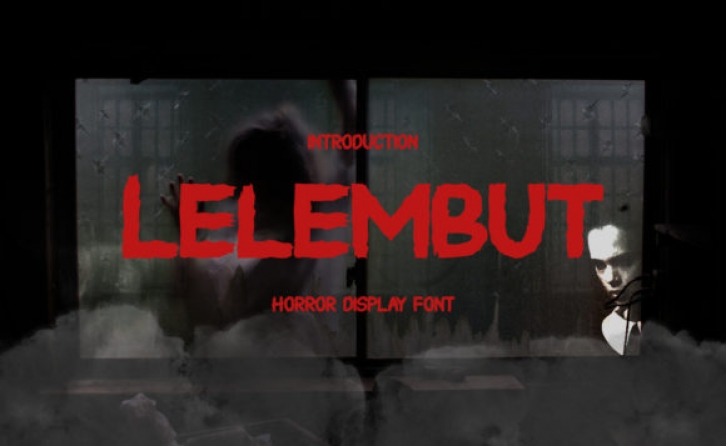
Lelembut is a cool brushed display font. It is defined by smooth curves and is perfect for fashion branding or editorial designs. Add it confidently to your projects, and you will love the results.